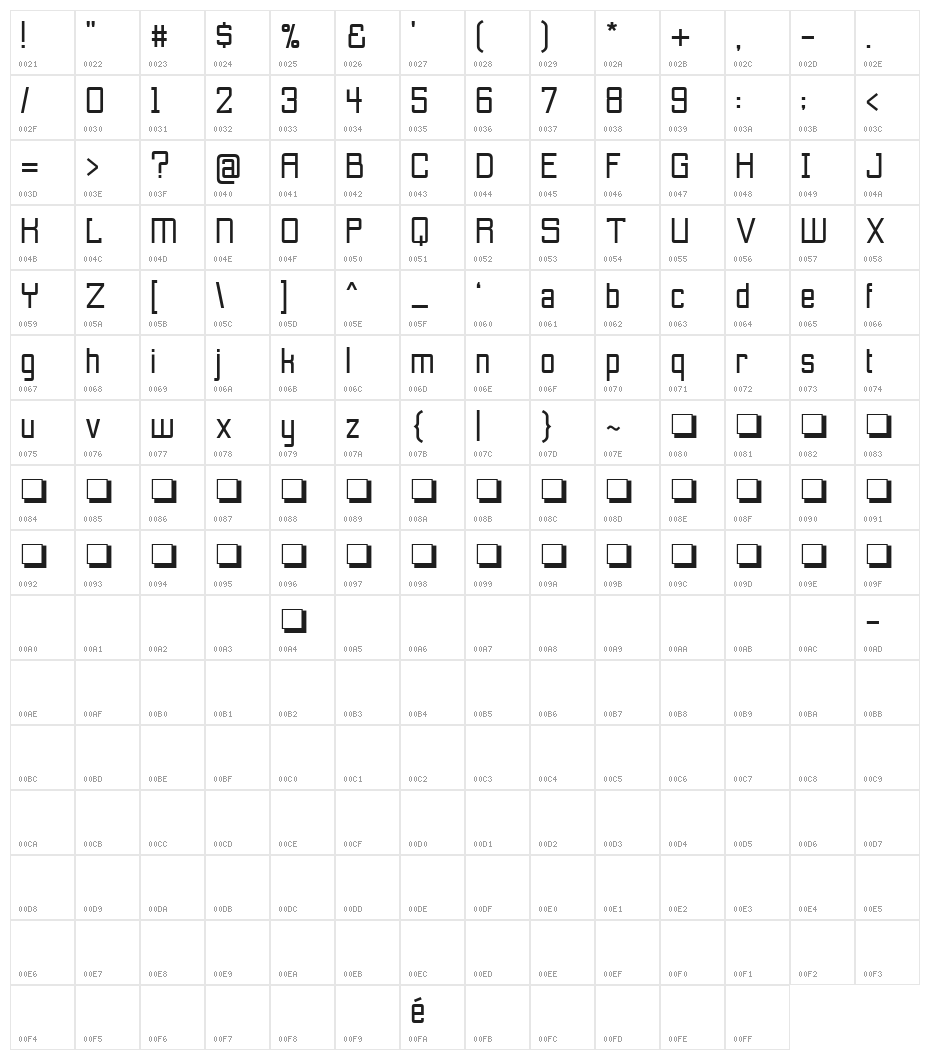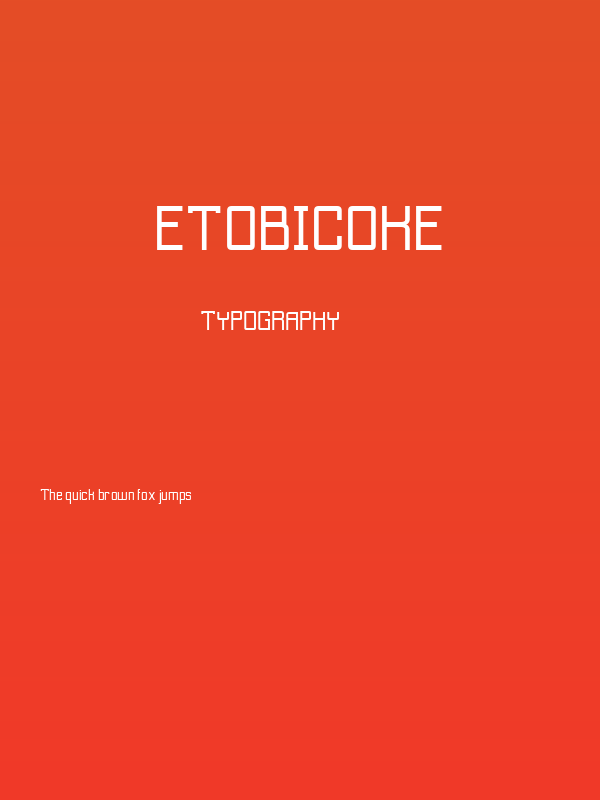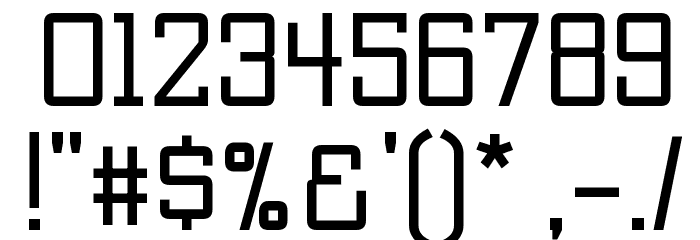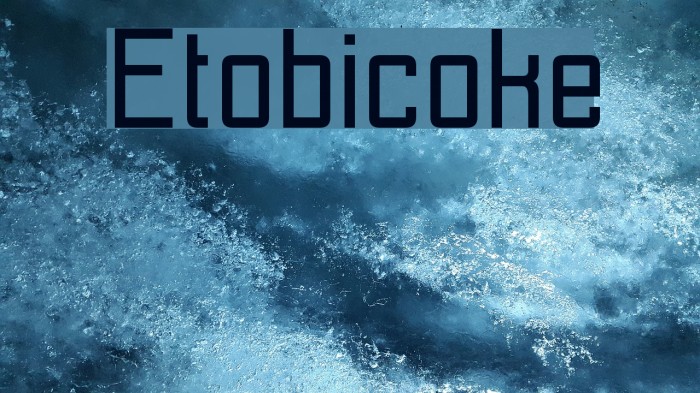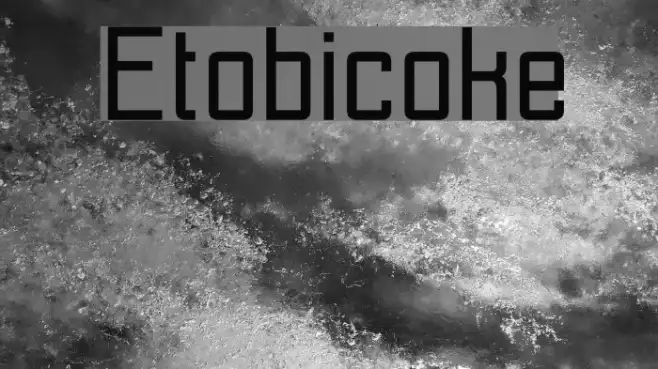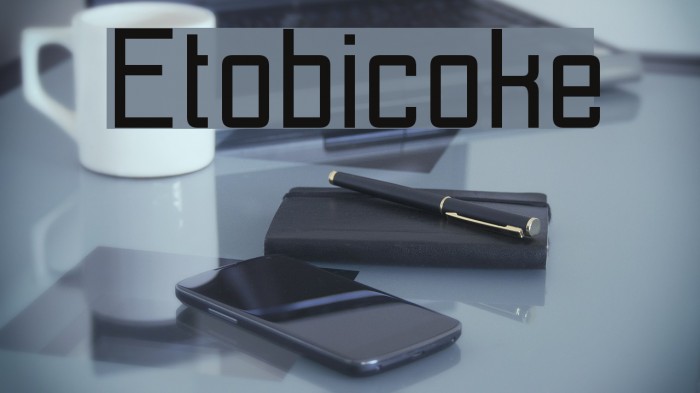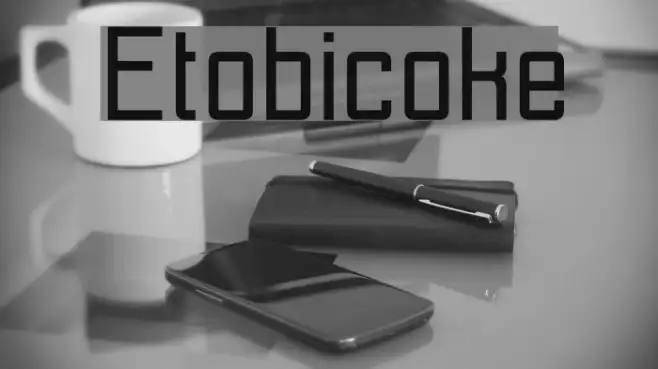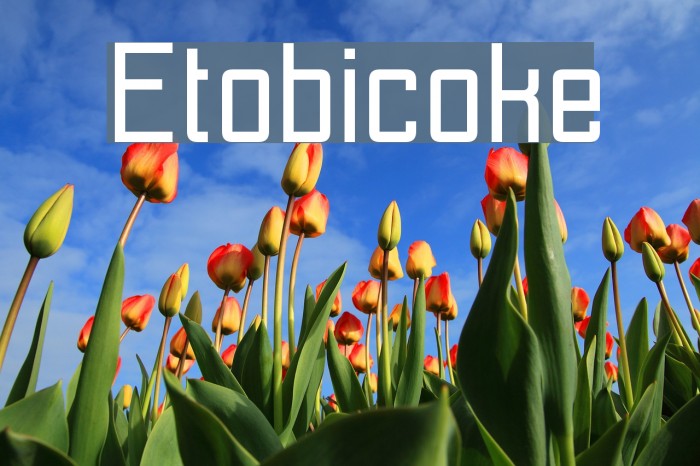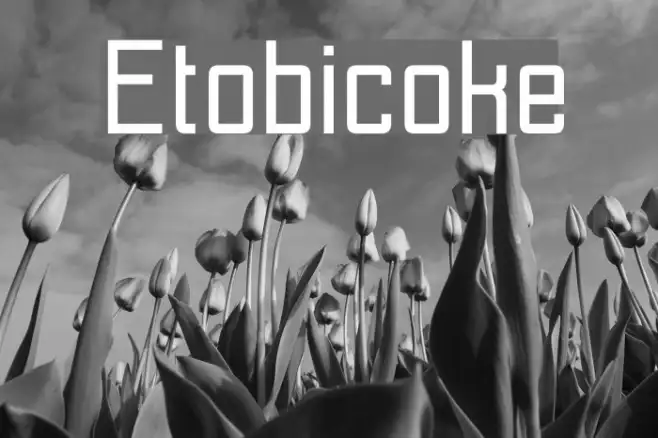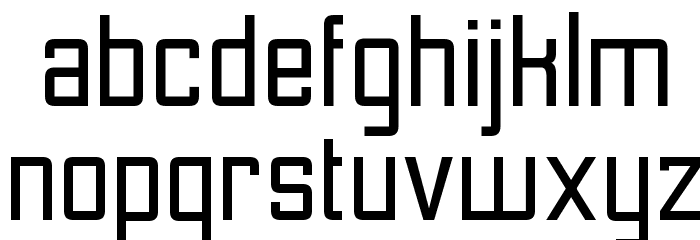
Etobicoke Font
Etobicoke Description
This font features a modern, geometric design with a clean and structured appearance. The characters are formed with consistent stroke widths, giving it a monospaced feel, although it is not strictly monospaced. The uppercase letters are tall and narrow, while the lowercase letters maintain a similar width, creating a harmonious balance. The numerals are distinct and easily readable, matching the overall style of the alphabet. Special characters are designed to complement the alphabet, maintaining the same geometric and structured aesthetic. This font is versatile, suitable for both digital and print media, offering a contemporary look that is both professional and approachable.
| Proposed Projects | Ideal for tech branding, digital interfaces, modern print layouts, and minimalist design projects. |